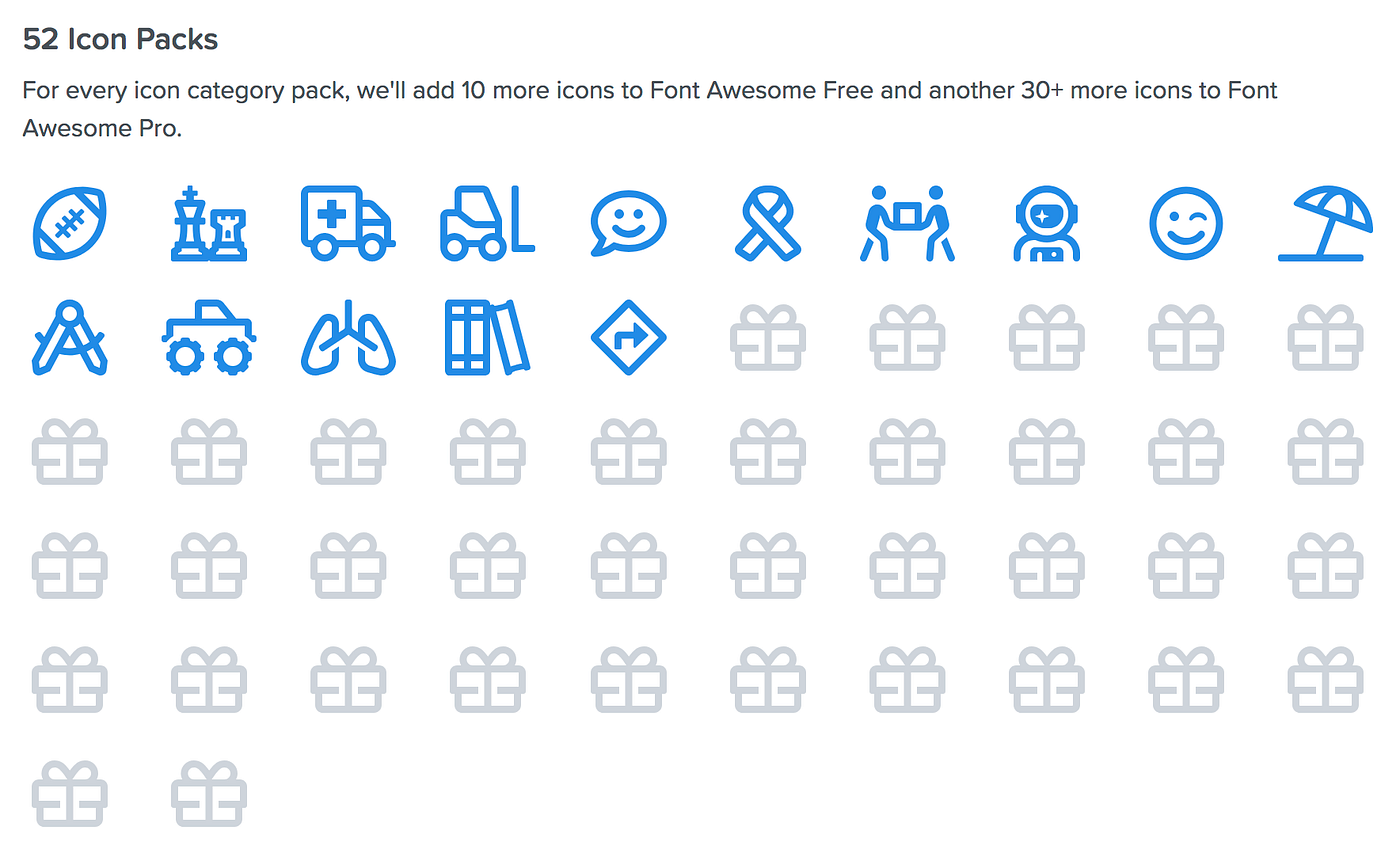
List Font Awesome
List Font Awesome - Available now in font awesome 6. More icons get 1535 icons right now with fa free, plus another 7020. List icon in the solid style. You asked, font awesome delivers with 41 shiny new icons in version 4.7. Make a bold statement in small sizes. Code snippet for how to use font awesome on any element and a full list of all the font awesome.
Make a bold statement in small sizes. More icons get 1535 icons right now with fa free, plus another 7020. List icon in the solid style. Available now in font awesome 6. You asked, font awesome delivers with 41 shiny new icons in version 4.7. Code snippet for how to use font awesome on any element and a full list of all the font awesome.
More icons get 1535 icons right now with fa free, plus another 7020. List icon in the solid style. Available now in font awesome 6. Code snippet for how to use font awesome on any element and a full list of all the font awesome. You asked, font awesome delivers with 41 shiny new icons in version 4.7. Make a bold statement in small sizes.
Font Awesome List Fa Fa List, Fas Fa List, Fa Solid Fa List HTML
Make a bold statement in small sizes. More icons get 1535 icons right now with fa free, plus another 7020. Code snippet for how to use font awesome on any element and a full list of all the font awesome. List icon in the solid style. You asked, font awesome delivers with 41 shiny new icons in version 4.7.
Font Awesome Icon List Most Interesting Icons
List icon in the solid style. Available now in font awesome 6. More icons get 1535 icons right now with fa free, plus another 7020. Make a bold statement in small sizes. Code snippet for how to use font awesome on any element and a full list of all the font awesome.
Font Awesome
Code snippet for how to use font awesome on any element and a full list of all the font awesome. More icons get 1535 icons right now with fa free, plus another 7020. Make a bold statement in small sizes. You asked, font awesome delivers with 41 shiny new icons in version 4.7. Available now in font awesome 6.
Code snippet for how to use font awesome on any element and a full list of all the font awesome. More icons get 1535 icons right now with fa free, plus another 7020. Make a bold statement in small sizes. You asked, font awesome delivers with 41 shiny new icons in version 4.7. List icon in the solid style.
Font Awesome 5.2 — 372 New Icons! Font Awesomeness
More icons get 1535 icons right now with fa free, plus another 7020. Code snippet for how to use font awesome on any element and a full list of all the font awesome. You asked, font awesome delivers with 41 shiny new icons in version 4.7. Make a bold statement in small sizes. Available now in font awesome 6.
Make a bold statement in small sizes. Available now in font awesome 6. More icons get 1535 icons right now with fa free, plus another 7020. List icon in the solid style. You asked, font awesome delivers with 41 shiny new icons in version 4.7.
You asked, font awesome delivers with 41 shiny new icons in version 4.7. More icons get 1535 icons right now with fa free, plus another 7020. List icon in the solid style. Code snippet for how to use font awesome on any element and a full list of all the font awesome. Make a bold statement in small sizes.
List icon in the solid style. Code snippet for how to use font awesome on any element and a full list of all the font awesome. More icons get 1535 icons right now with fa free, plus another 7020. You asked, font awesome delivers with 41 shiny new icons in version 4.7. Available now in font awesome 6.
Font Awesome Divi Integration Elegant Themes
Code snippet for how to use font awesome on any element and a full list of all the font awesome. More icons get 1535 icons right now with fa free, plus another 7020. Available now in font awesome 6. List icon in the solid style. Make a bold statement in small sizes.
Font Awesome Icon List at Collection of Font Awesome
You asked, font awesome delivers with 41 shiny new icons in version 4.7. Available now in font awesome 6. Code snippet for how to use font awesome on any element and a full list of all the font awesome. List icon in the solid style. Make a bold statement in small sizes.
Available Now In Font Awesome 6.
More icons get 1535 icons right now with fa free, plus another 7020. Code snippet for how to use font awesome on any element and a full list of all the font awesome. Make a bold statement in small sizes. List icon in the solid style.